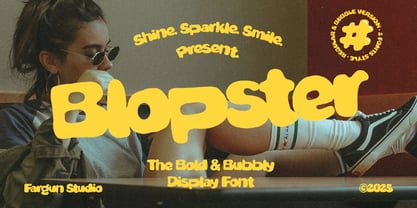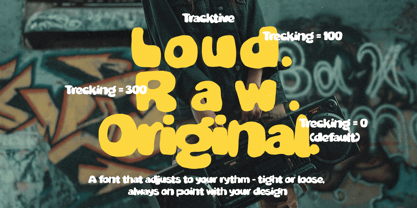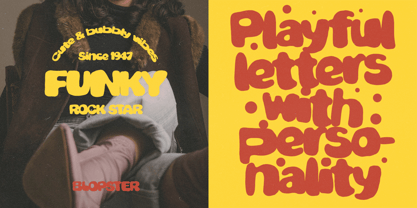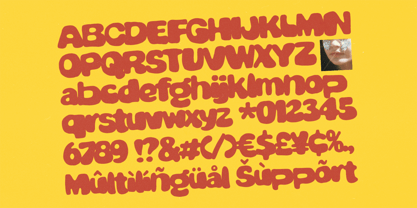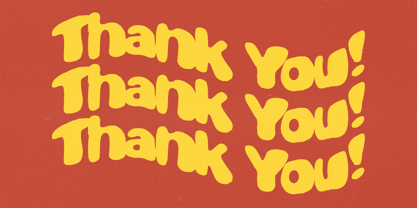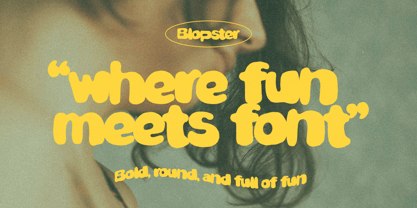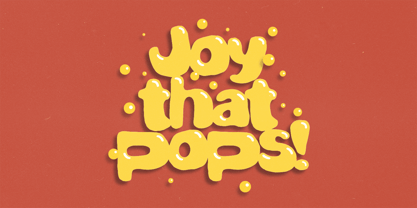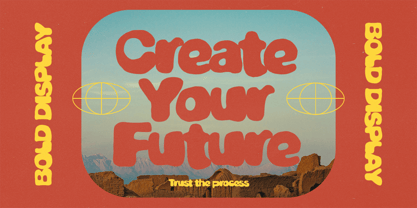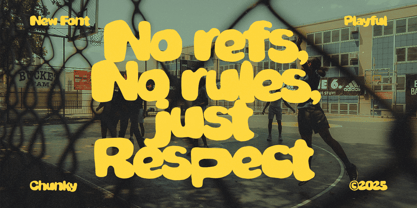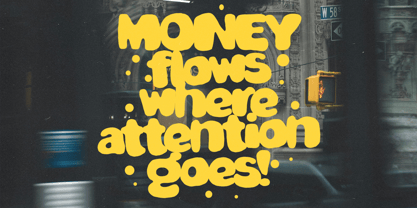
Blopster
by Fargun Studio
The Blopster Font Family was designed by Fajar Gunawan and published by Fargun Studio. Blopster contains 2 styles and family package options. More about this family
Say hello to Blopster, the ultimate playful display font that comes in two bold, expressive styles – the regular chunky version and a dripping Bubble variant that takes things to the next level!
Whether you're after clean, quirky boldness or gooey, glossy drips, Blopster gives you the flexibility to match your vibe. It's bold, bouncy, and packed with personality—perfect for logos, packaging, kids projects, and eye-popping visuals.